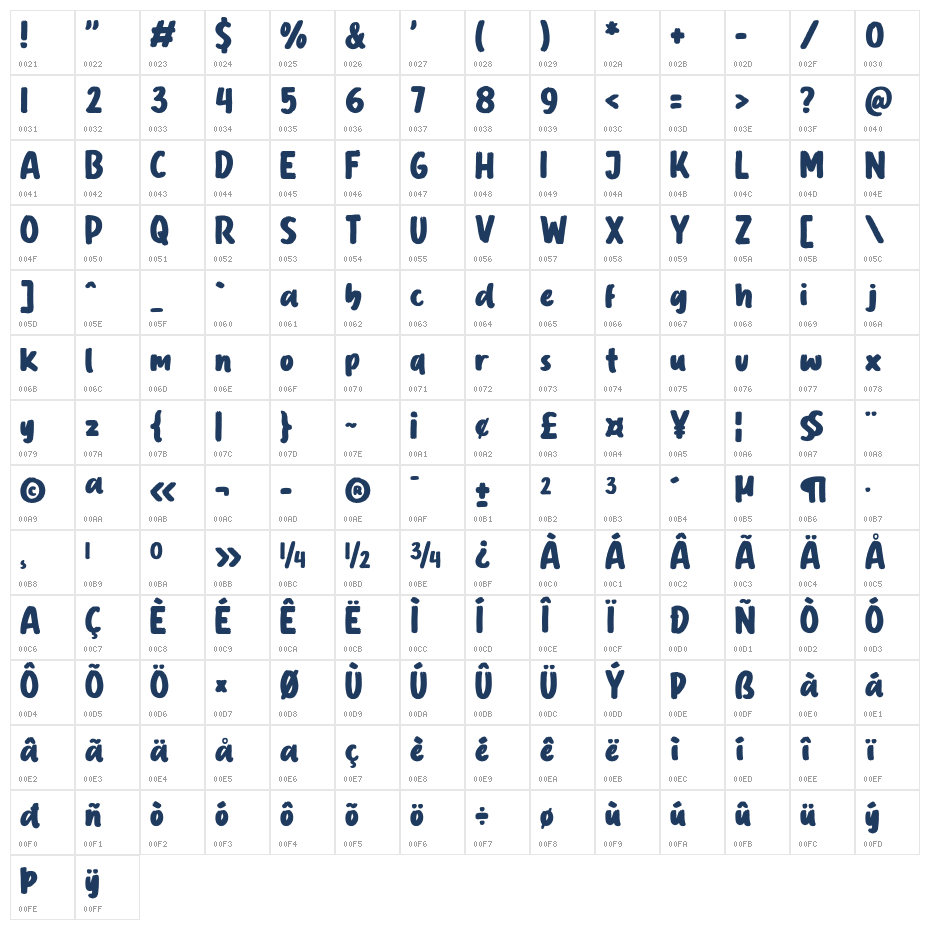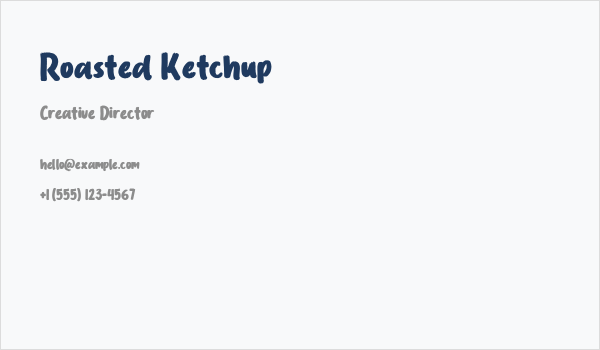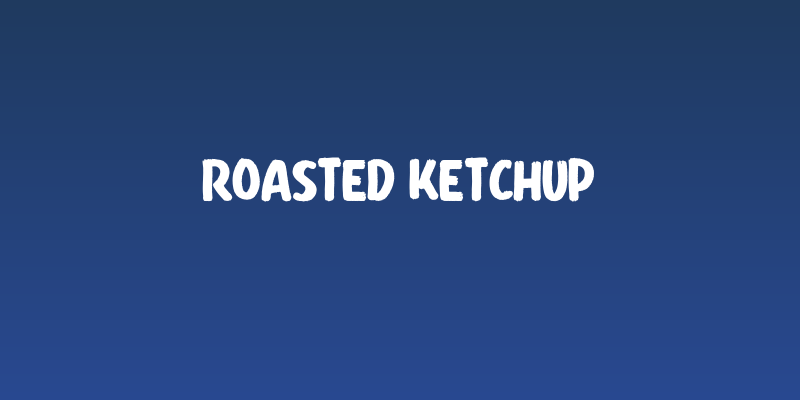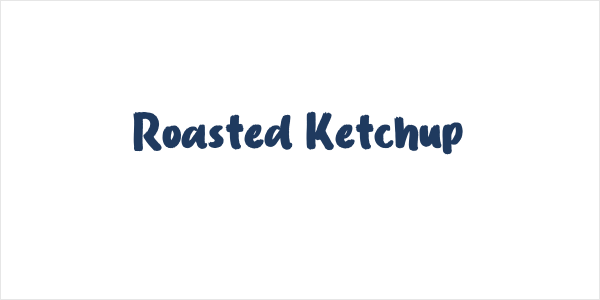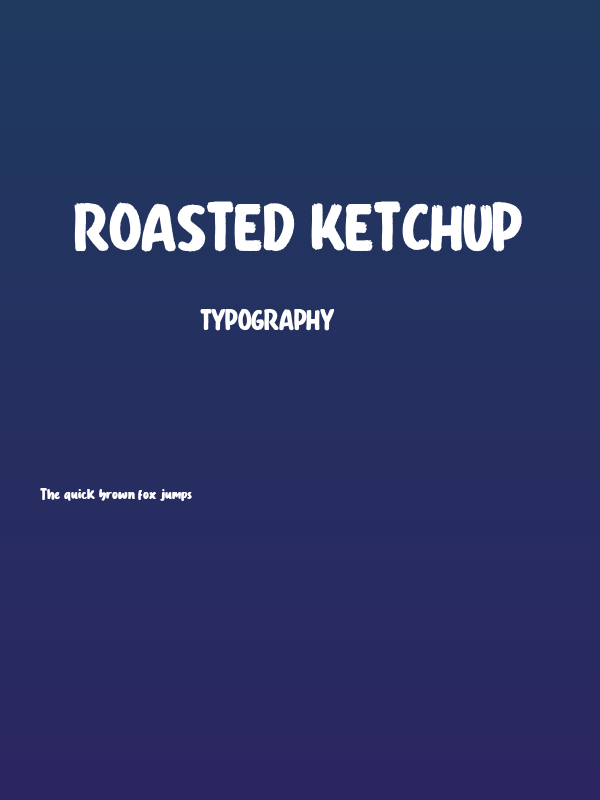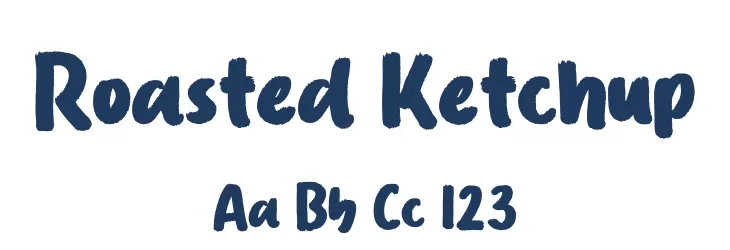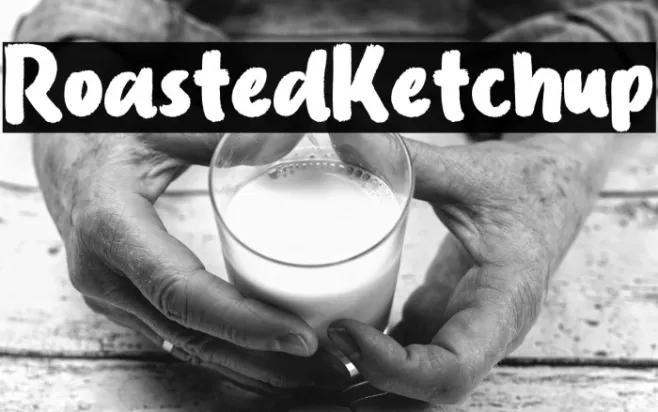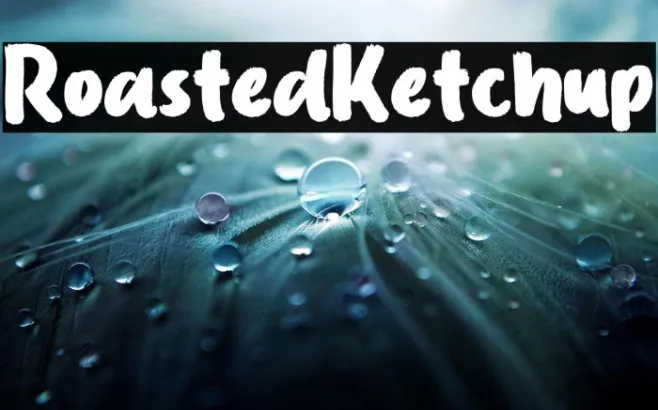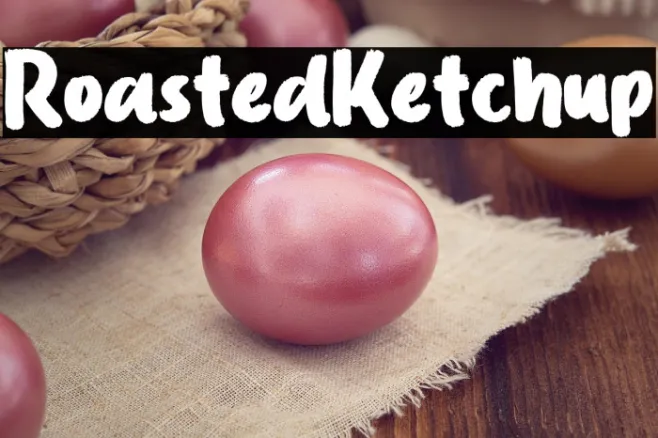
Roasted Ketchup Font
Roasted Ketchup Description
Bold, playful, handwritten style font with a casual and friendly appearance.
Roasted Ketchup
| Overall Style | Casual, Playful, Handwritten |
| Use Case | Headlines, Posters, Children's products, Social media |